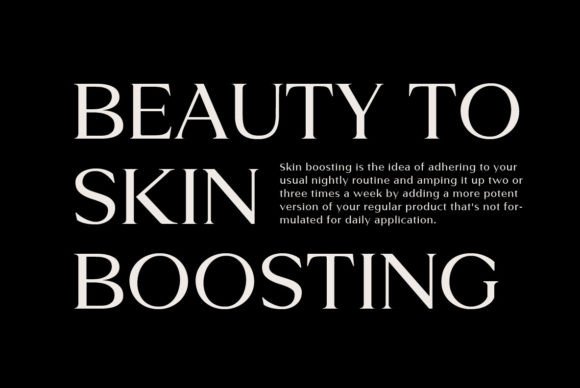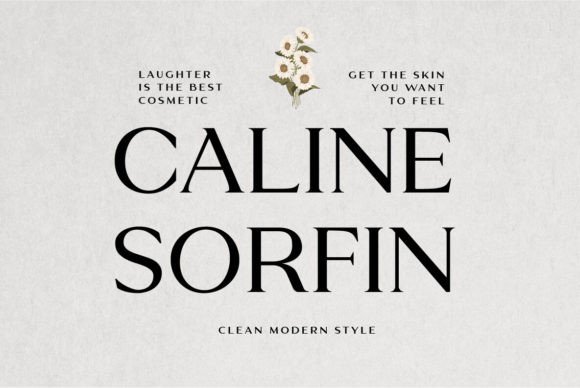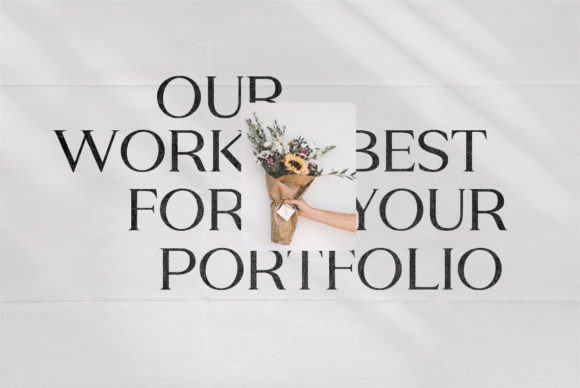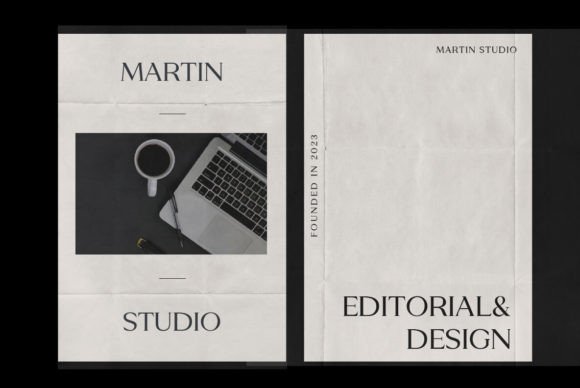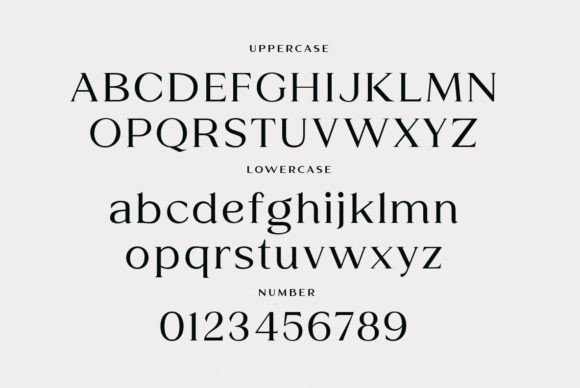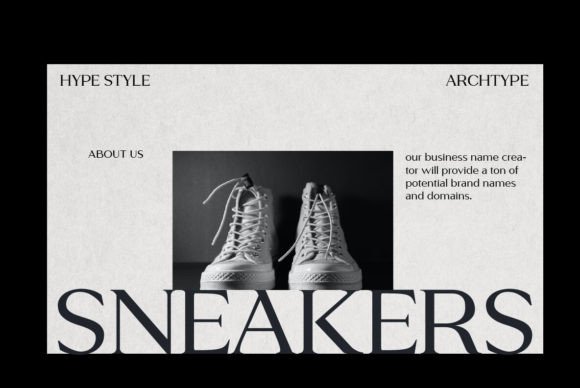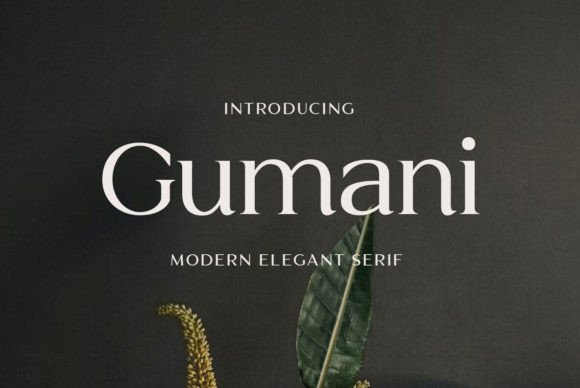
Gumani Font: Elevate Your Designs with Elegance and Readability
In the world of typography, a well-crafted font can make all the difference in the success of a design project. For designers and crafters seeking a typeface that exudes elegance, sophistication, and clarity, Gumani Font is an excellent choice. This versatile serif font boasts smooth yet firm lines, balanced letter proportions, and exceptional readability, making it perfect for a wide range of applications.
The Characteristics of Gumani Font
Gumani Font is distinguished by its elegant serif shape, which lends a touch of refinement to any design. The font’s lines are smooth and firm, creating a sense of balance and harmony. The letter proportions are carefully crafted to ensure that each character is proportionate to the others, resulting in a cohesive and visually appealing text.
Advantages of Using Gumani Serif Font
One of the primary advantages of Gumani Serif Font is its exceptional readability. The font’s design ensures that text is easy to read, even at small sizes, making it ideal for publications, books, articles, and other written materials. Additionally, Gumani Font’s elegant serif shape and balanced proportions make it suitable for logo and brand identity designs, where a professional and sophisticated image is essential.
Design Applications for Gumani Font
Gumani Font’s versatility makes it suitable for a wide range of design applications, including:
- Publications: Use Gumani Font to add a touch of elegance to magazines, newspapers, and other publications.
- Books: Gumani Font’s readability and classic serif shape make it an excellent choice for book designs, particularly for fiction, non-fiction, and educational publications.
- Articles: Whether you’re designing a blog post, article, or online content, Gumani Font ensures that your text is easy to read and engaging.
- Logo and Brand Identity: Gumani Font’s sophisticated and elegant design makes it perfect for logos, branding, and identity designs, particularly for businesses seeking to establish a professional image.
Why Choose Gumani Font?
With so many fonts available, why choose Gumani Font? Here are a few compelling reasons:
- Unique Design: Gumani Font’s distinctive serif shape and balanced proportions set it apart from other fonts.
- Exceptional Readability: Gumani Font is designed to be easy to read, making it perfect for text-heavy designs.
- Versatility: Gumani Font can be used for a wide range of design applications, from publications to logo designs.
- Elegant and Sophisticated: Gumani Font adds a touch of elegance and sophistication to any design, making it perfect for businesses and individuals seeking to establish a professional image.
Tips for Using Gumani Font Effectively
To get the most out of Gumani Font, consider the following tips:
- Pair with Other Fonts: Experiment with pairing Gumani Font with other fonts to create visual interest and hierarchy.
- Adjust Font Sizes: Use different font sizes to create emphasis and guide the reader’s attention.
- Play with Line Spacing: Adjust line spacing to create a sense of flow and readability.
Gumani Font is an exceptional typeface that offers a unique combination of elegance, readability, and versatility. Whether you’re a designer, crafter, or business owner, Gumani Font is an excellent choice for any design project that requires a professional and sophisticated image. With its smooth yet firm lines, balanced letter proportions, and exceptional readability, Gumani Font is sure to elevate your designs to the next level.